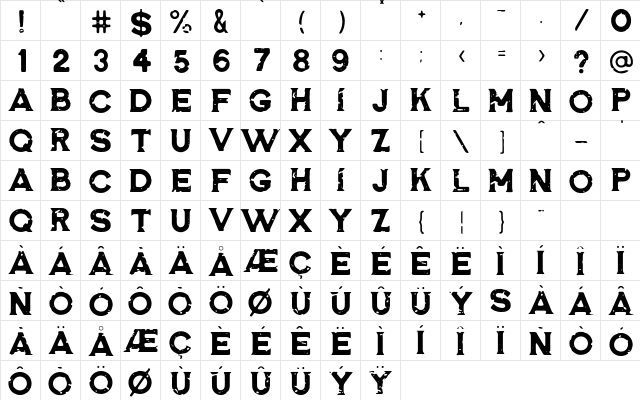
Rosewell Black RGH Regular
| Foundry | Ardyanatypes Studio |
| Designer | Ardyanatypes |
Design Context for Rosewell Black RGH Typeface
Rosewell Black RGH is a composed and adaptable typeface that performs quietly and consistently across a wide range of design contexts.
Pro Tip: Use Rosewell Black RGH in both headline and body roles to test its range before committing to a single application.